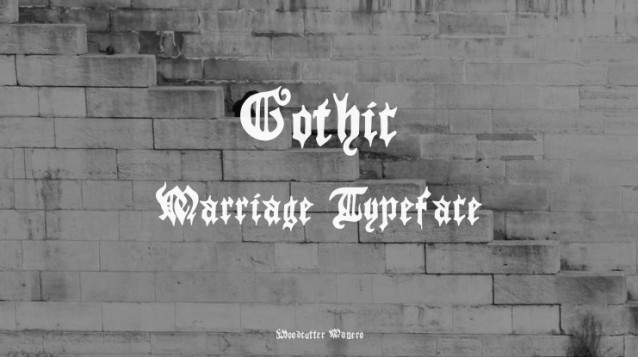
Gothic Marriage Font
Gothic Marriage Font is an incredibly authentic and bold blackletter font. This original look will appeal to a wide range of crafty ideas, from letterheads and titles, to stationery.